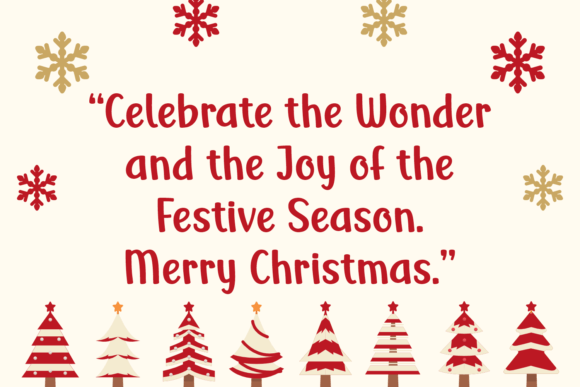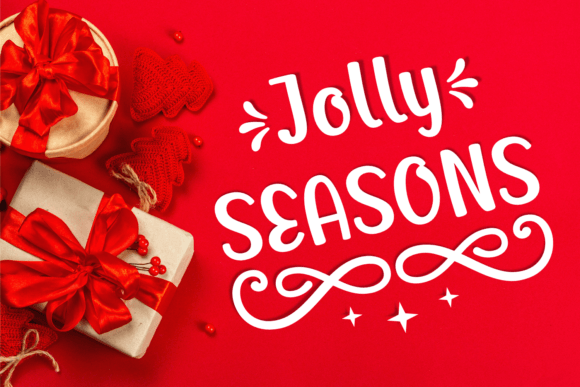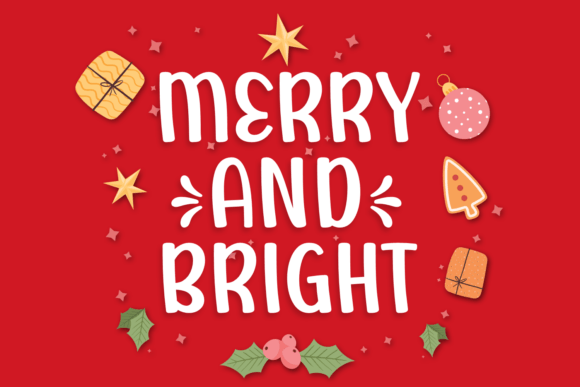
Introduction to Peace on Earth Font
Peace on Earth is a cheerful and bright handwritten font.
With its neat and joyful personality, this font will enhance any project you wish to create .
Key Features of Peace on Earth Font
Why Choose Peace on Earth Font?